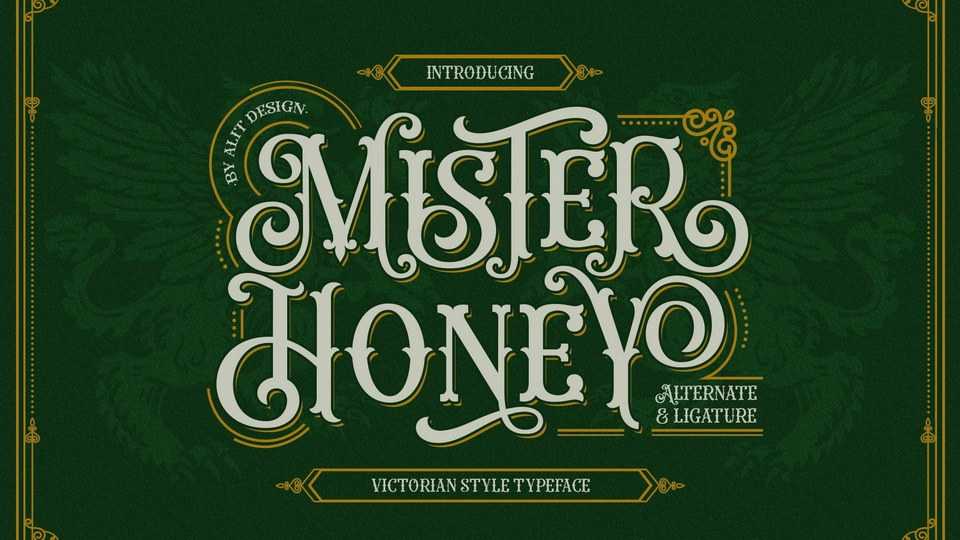
Download Mister Honey font, a decorative typeface inspired by the classic Victorian style combined with western style which makes the the font look cool and unique. Mister Honey font is perfect for a bold and vintage Victorian concept design.